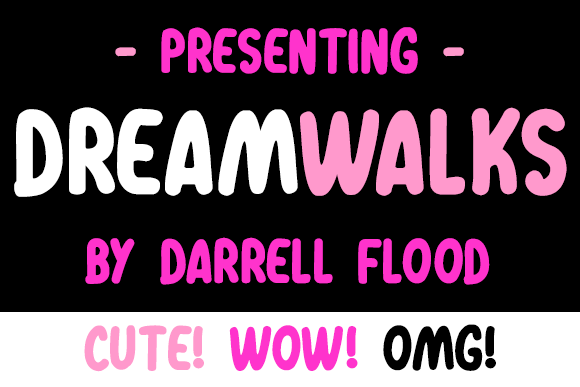
Dreamwalks Font: A Fun and Quirky Typeface for Comic Bubble Text
Are you looking for a font that can add a playful touch to your designs? Look no further than Dreamwalks Font, a neat and thick typeface in a felt-tip marker style. Created by Darrell Flood, this font is perfect for adding a cute and quirky touch to comic bubble text, making it a great addition to any designer’s toolkit.
What is Dreamwalks Font?
Dreamwalks Font is a fun and unique typeface that mimics the look of text written with a felt-tip marker. The font is characterized by its thick lines, rounded edges, and playful feel. It’s the perfect choice for designers who want to add a touch of whimsy to their designs, whether it’s for a comic book, a cartoon, or a playful advertisement.
Features of Dreamwalks Font
- Thick and bold lines: Dreamwalks Font features thick and bold lines that give it a playful and eye-catching feel.
- Felt-tip marker style: The font’s felt-tip marker style gives it a unique and distinctive look that’s perfect for comic bubble text.
- Rounded edges: The font’s rounded edges add to its playful feel and make it easy to read.
- Cute and quirky: Dreamwalks Font is the perfect choice for designers who want to add a touch of whimsy to their designs.
Who Created Dreamwalks Font?
Dreamwalks Font was created by Darrell Flood, a talented font designer who has created a range of unique and interesting typefaces. With a passion for typography and a keen eye for detail, Darrell Flood has designed fonts that are both functional and visually appealing.
Uses of Dreamwalks Font
Dreamwalks Font is a versatile typeface that can be used in a range of design projects, including:
- Comic books and cartoons: The font’s playful feel and comic bubble text style make it perfect for use in comic books and cartoons.
- Advertisements: Dreamwalks Font can add a touch of whimsy and playfulness to advertisements, making them more eye-catching and engaging.
- Signage: The font’s bold lines and rounded edges make it easy to read, making it a great choice for signage.
- Digital media: Dreamwalks Font can be used in digital media, such as videos, animations, and social media graphics.
Benefits of Using Dreamwalks Font
There are several benefits to using Dreamwalks Font in your designs, including:
- Unique and distinctive look: The font’s felt-tip marker style and bold lines give it a unique and distinctive look that sets it apart from other typefaces.
- Playful feel: Dreamwalks Font adds a playful touch to designs, making them more engaging and eye-catching.
- Easy to read: The font’s rounded edges and bold lines make it easy to read, even at small sizes.
- Versatile: Dreamwalks Font can be used in a range of design projects, from comic books to advertisements.
How to Use Dreamwalks Font
Using Dreamwalks Font in your designs is easy. Here are a few tips to get you started:
- Choose the right size: Dreamwalks Font is best used at larger sizes, where its bold lines and rounded edges can be fully appreciated.
- Experiment with colors: The font’s playful feel lends itself well to bright and bold colors.
- Use it sparingly: Dreamwalks Font is a bold and eye-catching typeface, so use it sparingly to avoid overwhelming the design.
Dreamwalks Font is a fun and quirky typeface that’s perfect for adding a playful touch to designs. With its thick lines, rounded edges, and felt-tip marker style, it’s the perfect choice for comic bubble text and other design projects where a playful feel is desired. Created by Darrell Flood, this font is a great addition to any designer’s toolkit.
FAQ
- What is Dreamwalks Font?: Dreamwalks Font is a fun and quirky typeface in a felt-tip marker style, perfect for comic bubble text and other design projects.
- Who created Dreamwalks Font?: Dreamwalks Font was created by Darrell Flood, a talented font designer.
- What are the features of Dreamwalks Font?: The font features thick lines, rounded edges, and a playful feel.